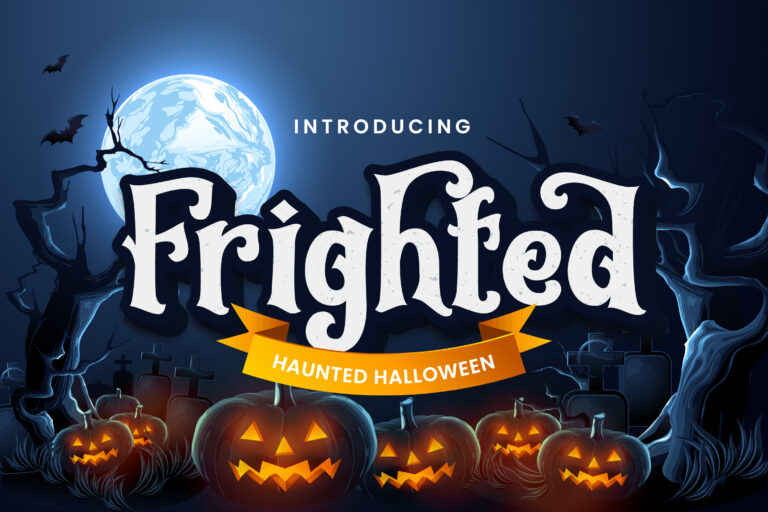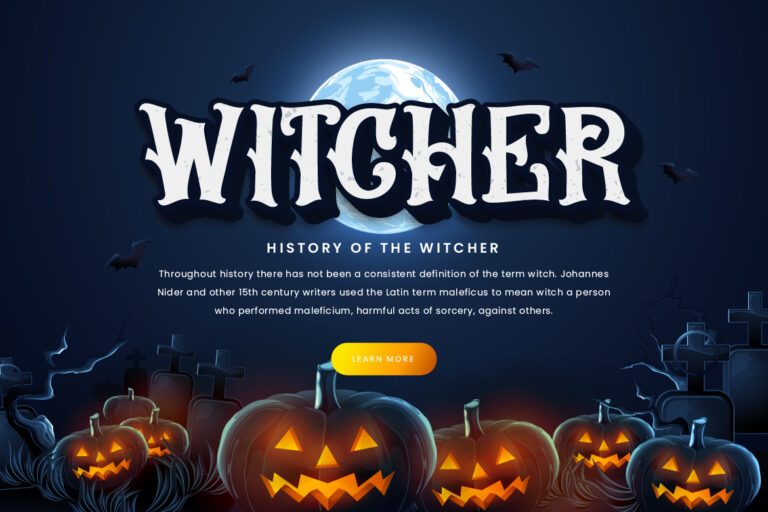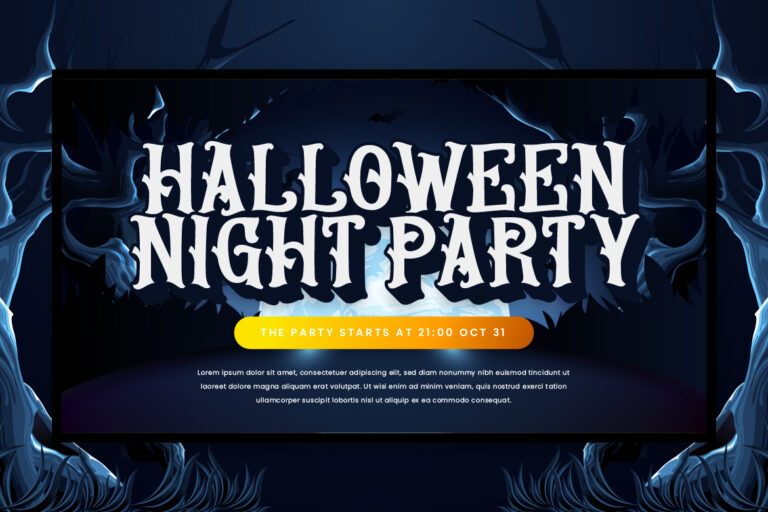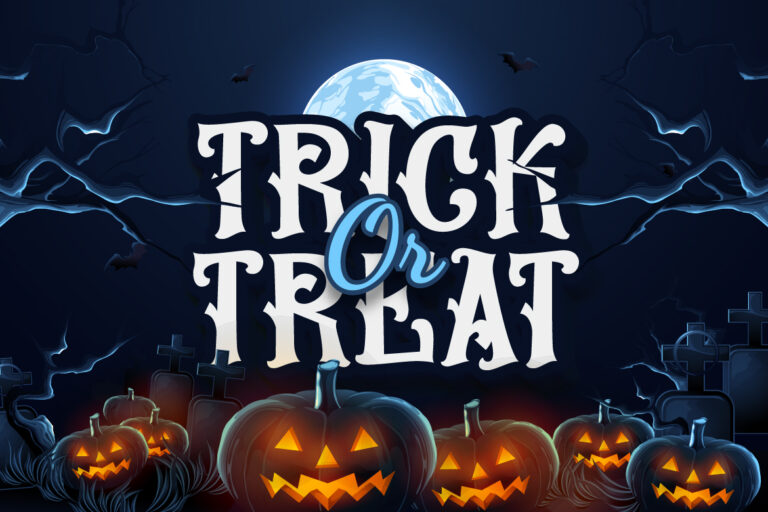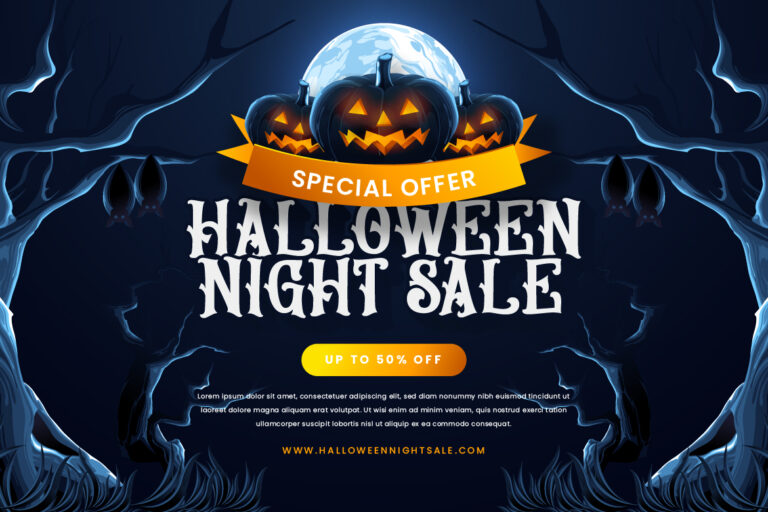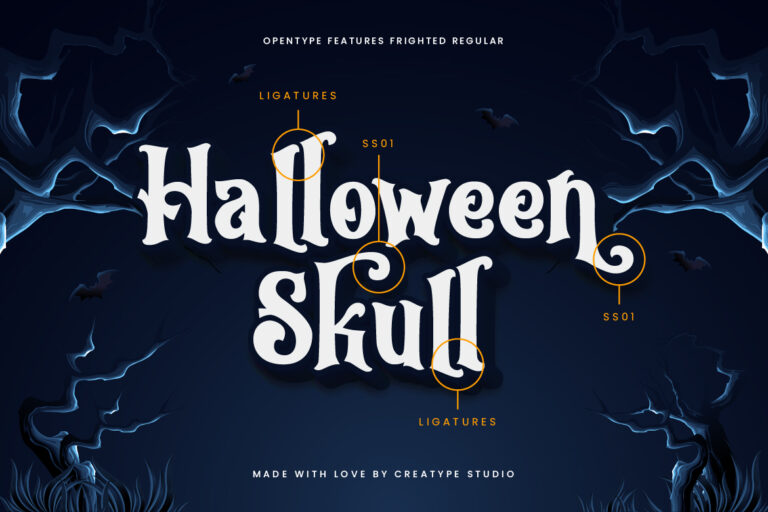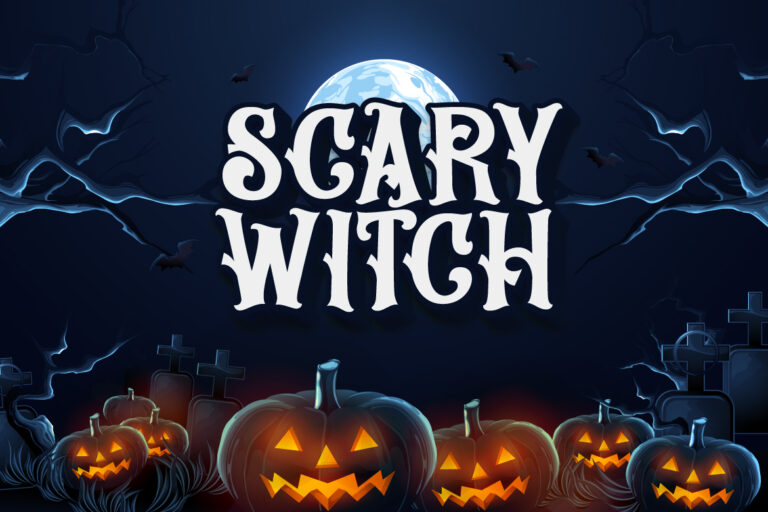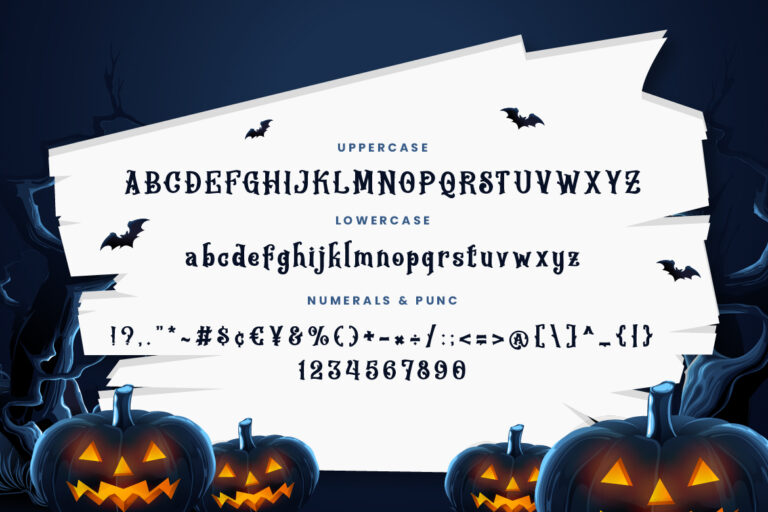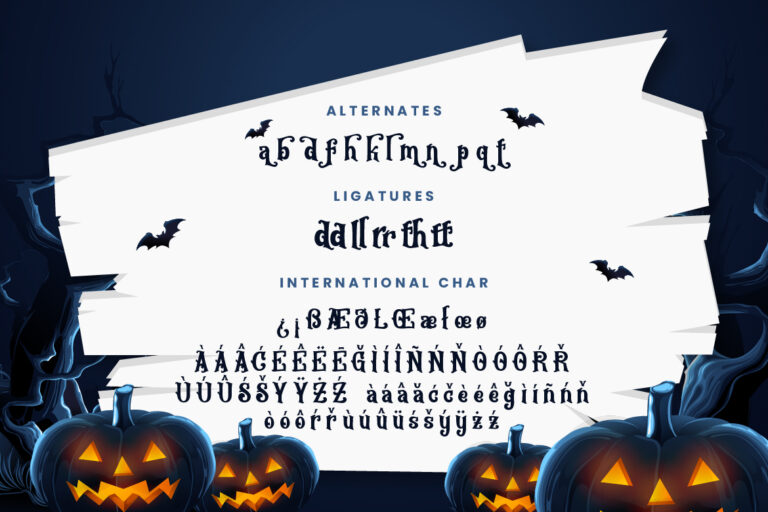
Frighted Haunted Halloween
Frighted is a haunted Halloween typeface specially crafted with love to create amazing-looking fonts. This font is perfect for all your big products so it looks amazing.
Frighted is perfect for branding projects, logo, wedding designs, social media posts, advertisements, product packaging, product designs, label, photography, watermark, invitation, stationery and any projects that need handwriting taste.